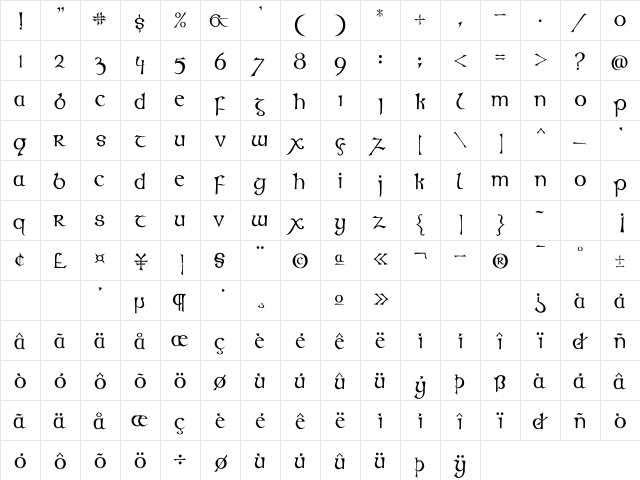
Kells Round
Design Context for Kells Typeface
Kells softens its letterforms with rounded terminals, giving it an approachable, friendly quality that works well in consumer-facing and digital contexts.
A natural fit for tech startups, health and wellness brands, children's products, and friendly consumer apps.
Font Pairing: Pairs well with a rounded or humanist sans for body copy, maintaining the friendly tone without relying on Kells to carry extended reading.
Pro Tip: Pair Kells with a geometric sans for a balanced system — the rounded softness works as a warm counterpoint to harder-edged companions.